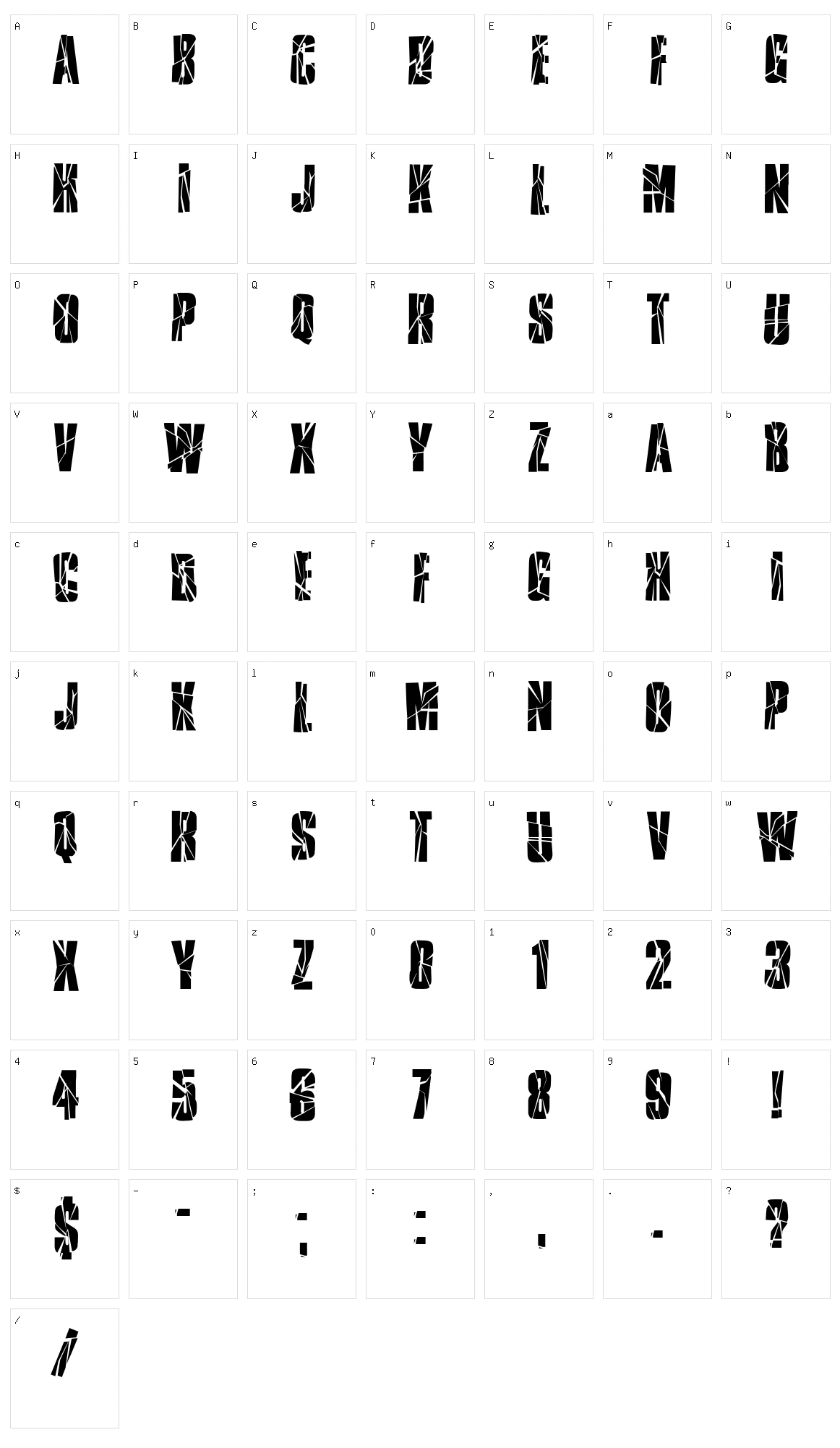
The free font Ruptured Sans is carefully designed by Manfred Klein, showcasing a thoughtful balance of creativity and usability and falls under the Distorted font style. When you download the ZIP file, it contains only 36.13 KB of font files, making it lightweight and quick to download. Please review the license details below to understand permitted usage and distribution rights. If license information is not available, we recommend using this font for personal projects only or contacting the author directly for commercial usage permissions.